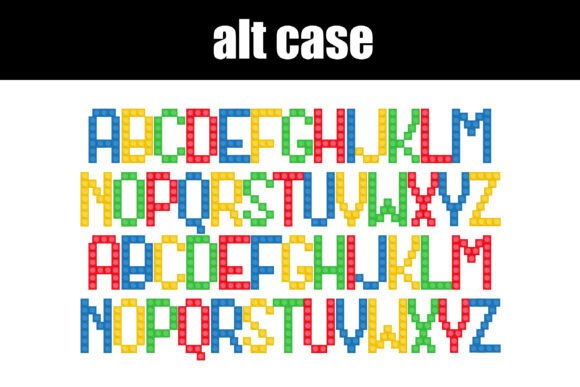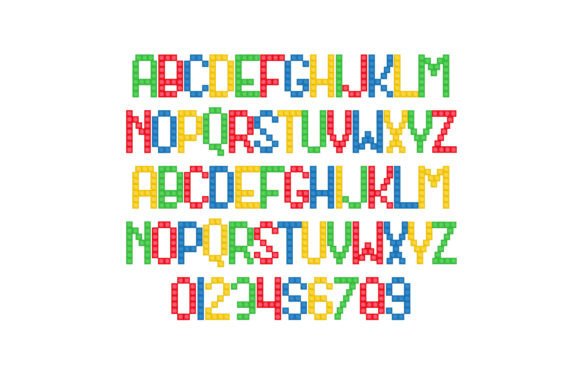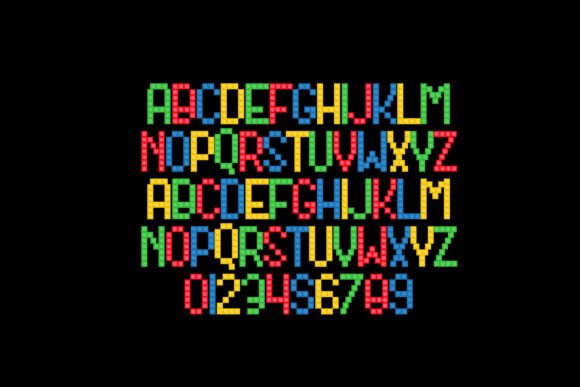
Builders Too Font
This full-color font features a simple alphabet made out building blocks. There is an alt case w/ additional colors you can access through your system or Silhouette’s glyph map. This font works best for titles, displays, posters and more. Please note color fonts will show as black in non compatible programs. This font type is compatible with Silhouette Studio.OpenType full-color (SVG) fonts are installed like any normal .otf font is installed. This usually happens via FontBook for Mac users or via your preferred font manager or Control Panel in Windows. Please note color fonts will show as black in non-compatible programs. They often show as black when choosing the font in the preview window in programs that support color fonts. You will know if your program can support color fonts when you type on the document and see them in color. Adobe products, Silhouette Studio, Quark, and Inkscape, amongst others, support full-color SVG fonts at this time.Full-color SVG fonts are the perfect way to add a touch of personality to your designs. With a full range of colors and styles to choose from, you can create anything from simple text logos to complex illustrations. Plus, SVG fonts are vector-based, so they can be scaled to any size without losing quality.you.